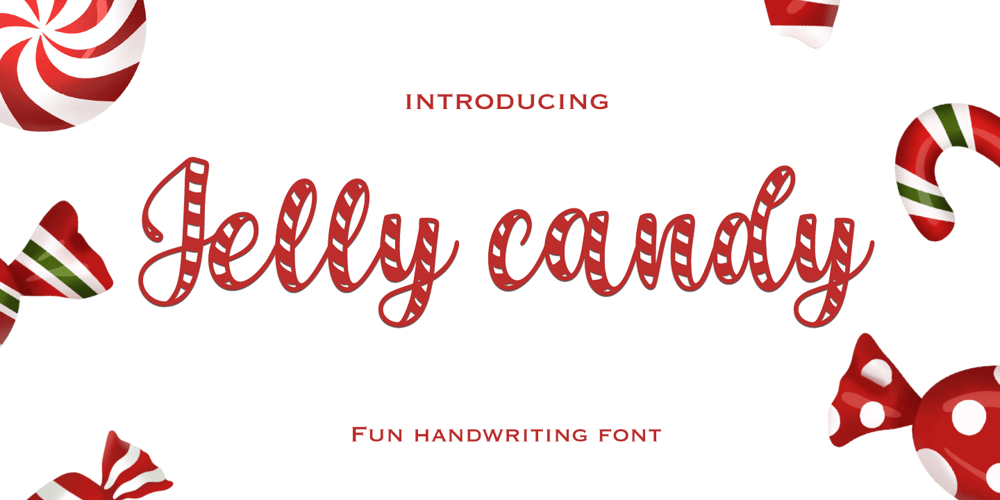
Jelly candy Font Family was designed by Muhammad Zaini and published by Cocodesign. Jelly candy contains 1 styles and family package options. Jelly candy is a handwriting design font duo, including Regular. This font is casual and beautiful with swash. Can be used for various purposes. such as logos, product packaging, wedding invitations, branding, headlines, signage, labels, signatures, book covers, posters, quotes, and more.If you need help or have questions, please let me know. I am happy to help ๐ Thank you & Congratulations on Designing!